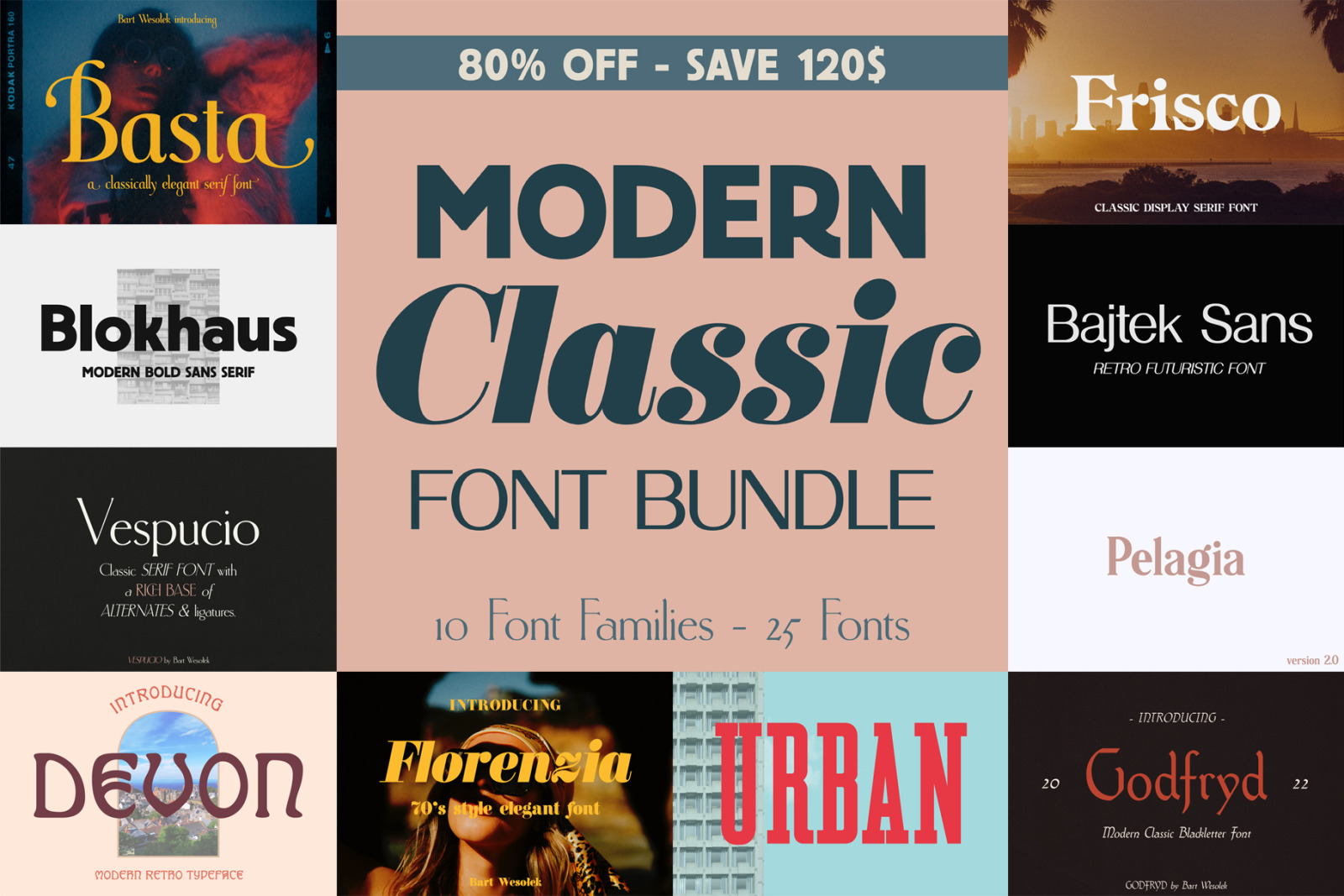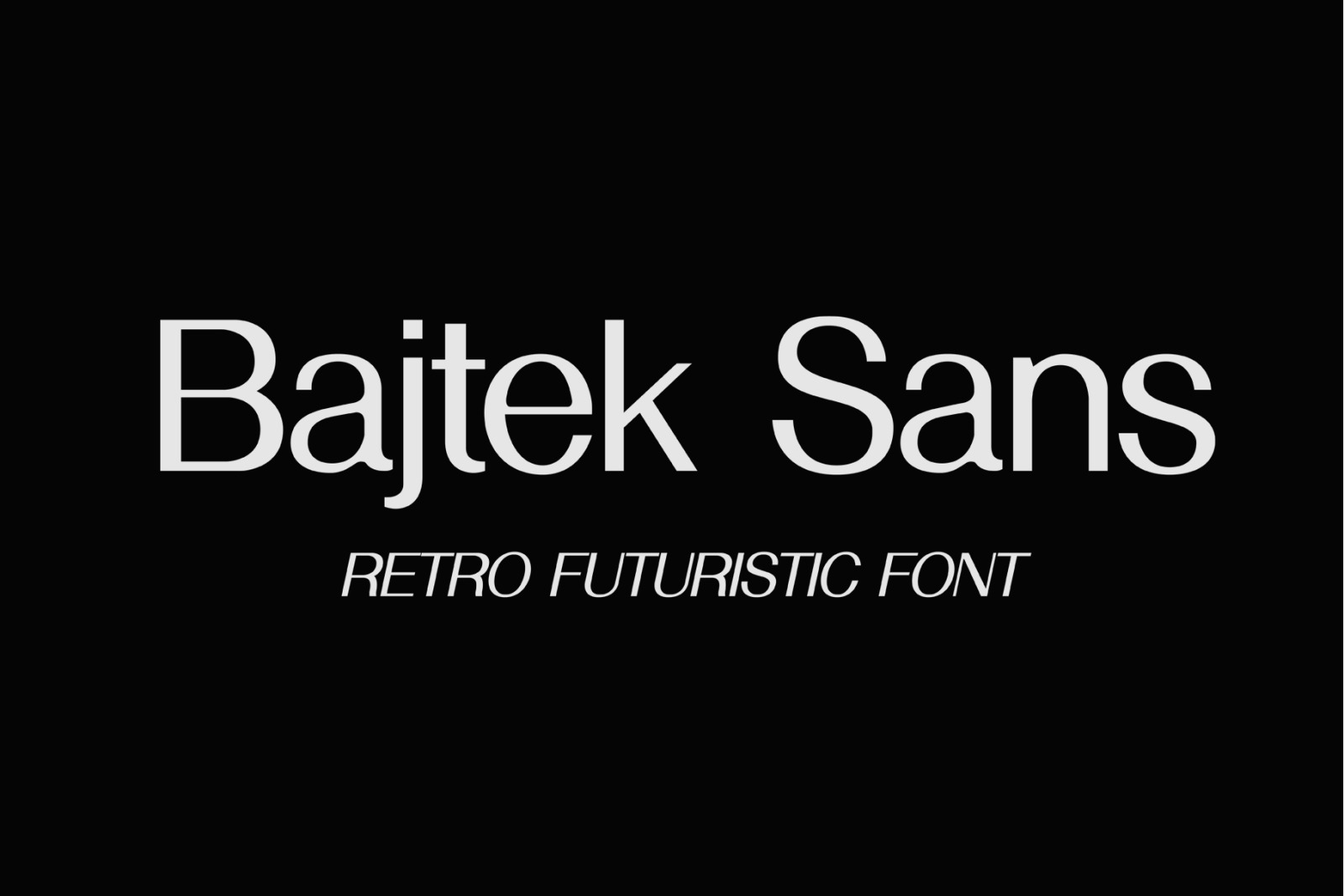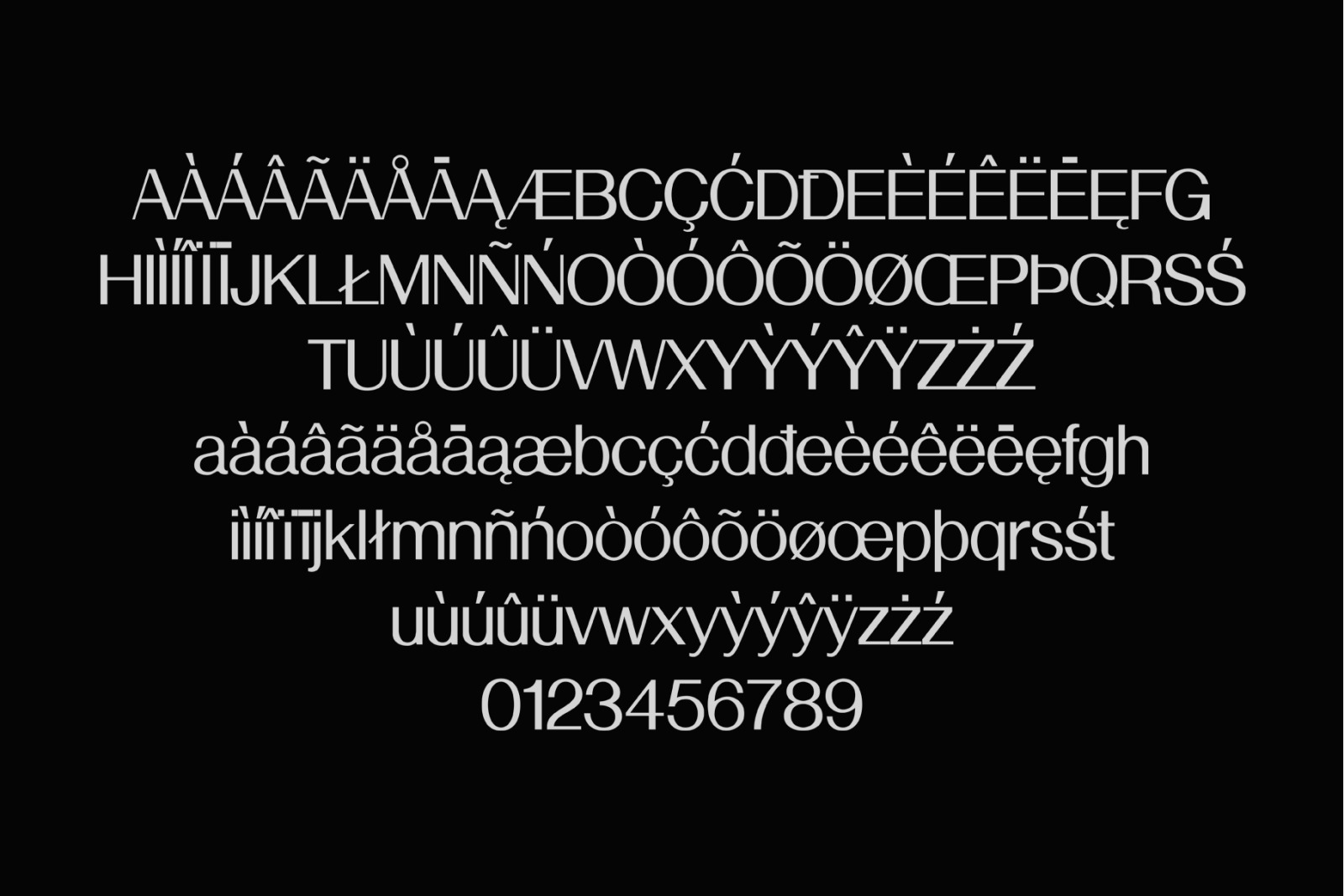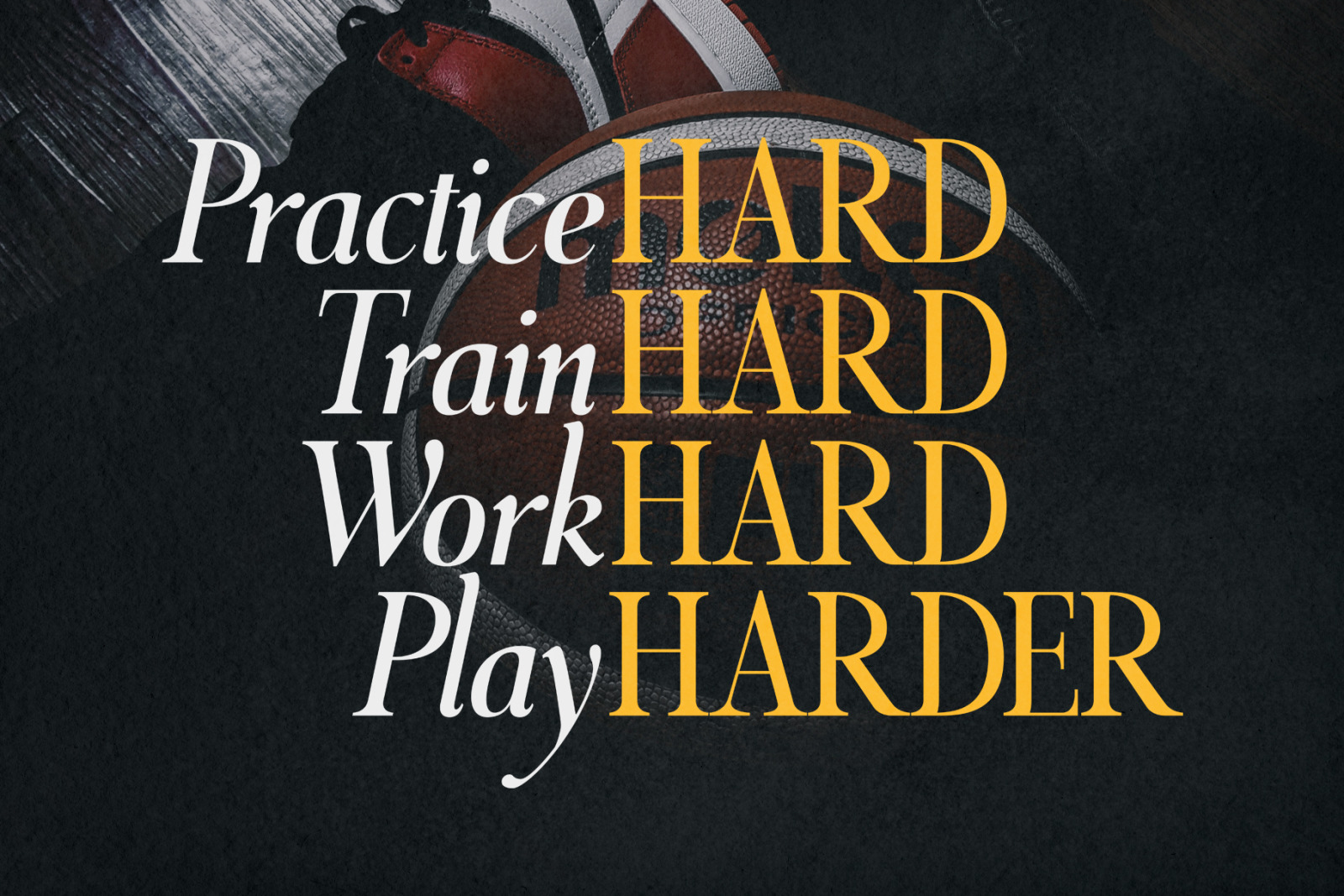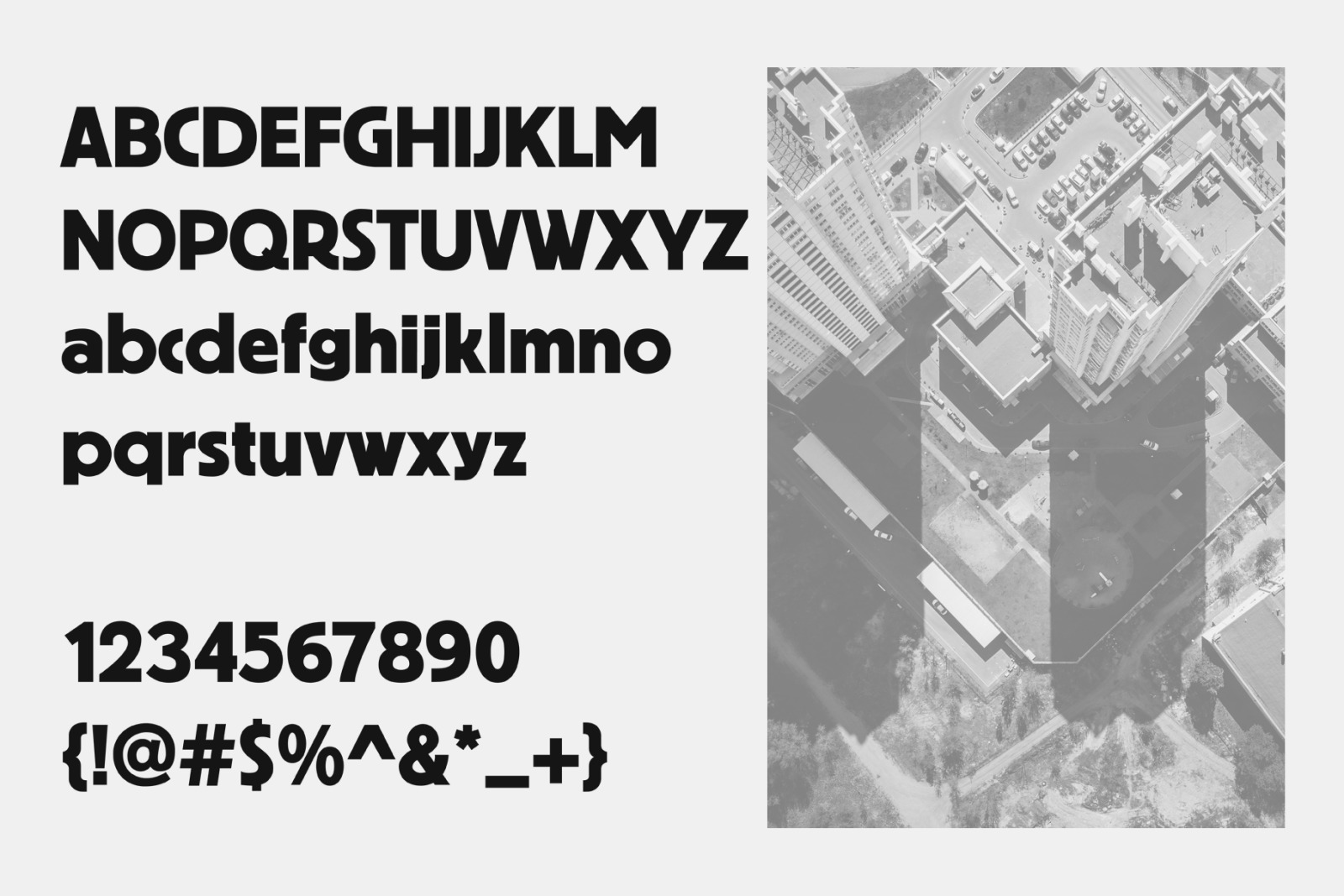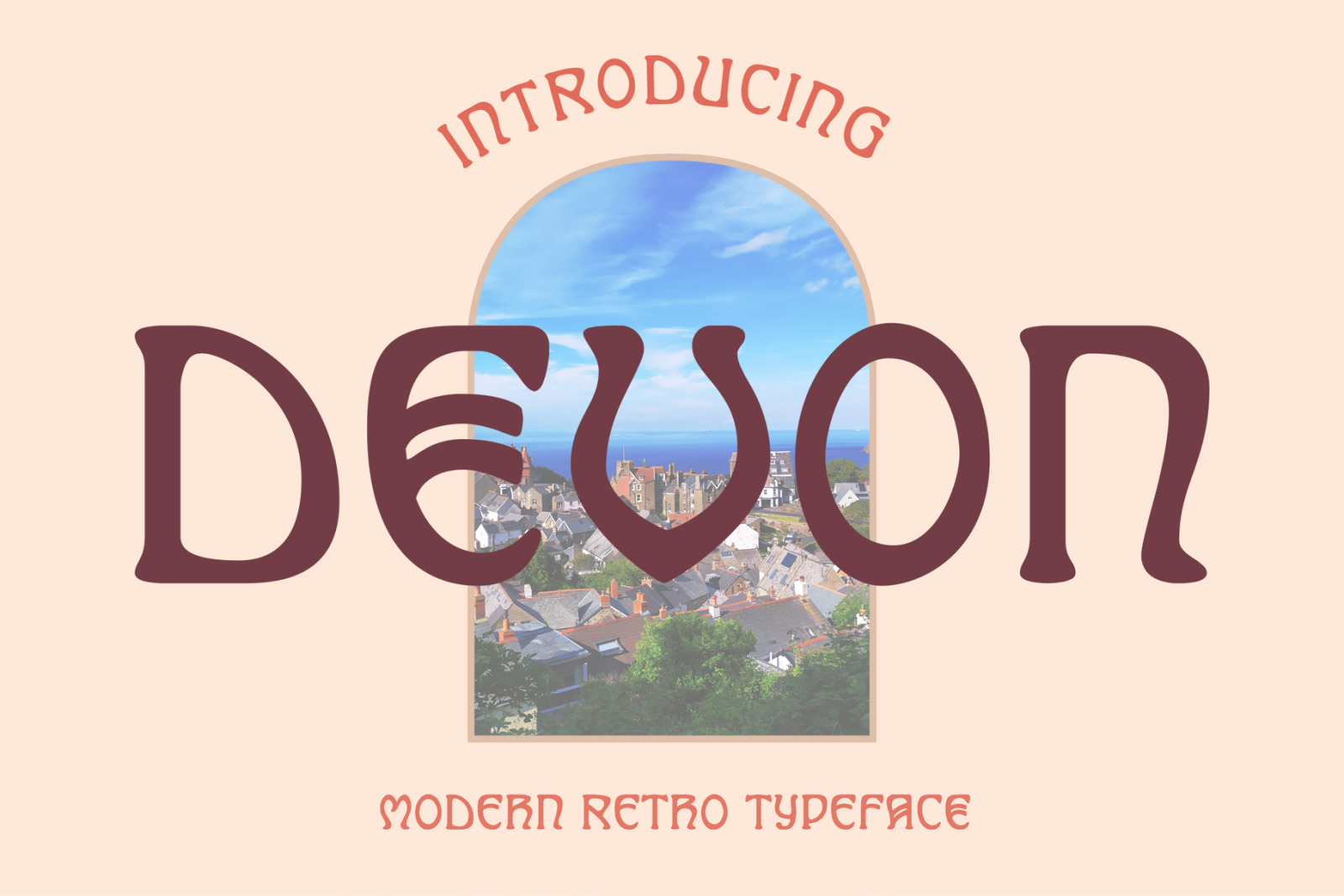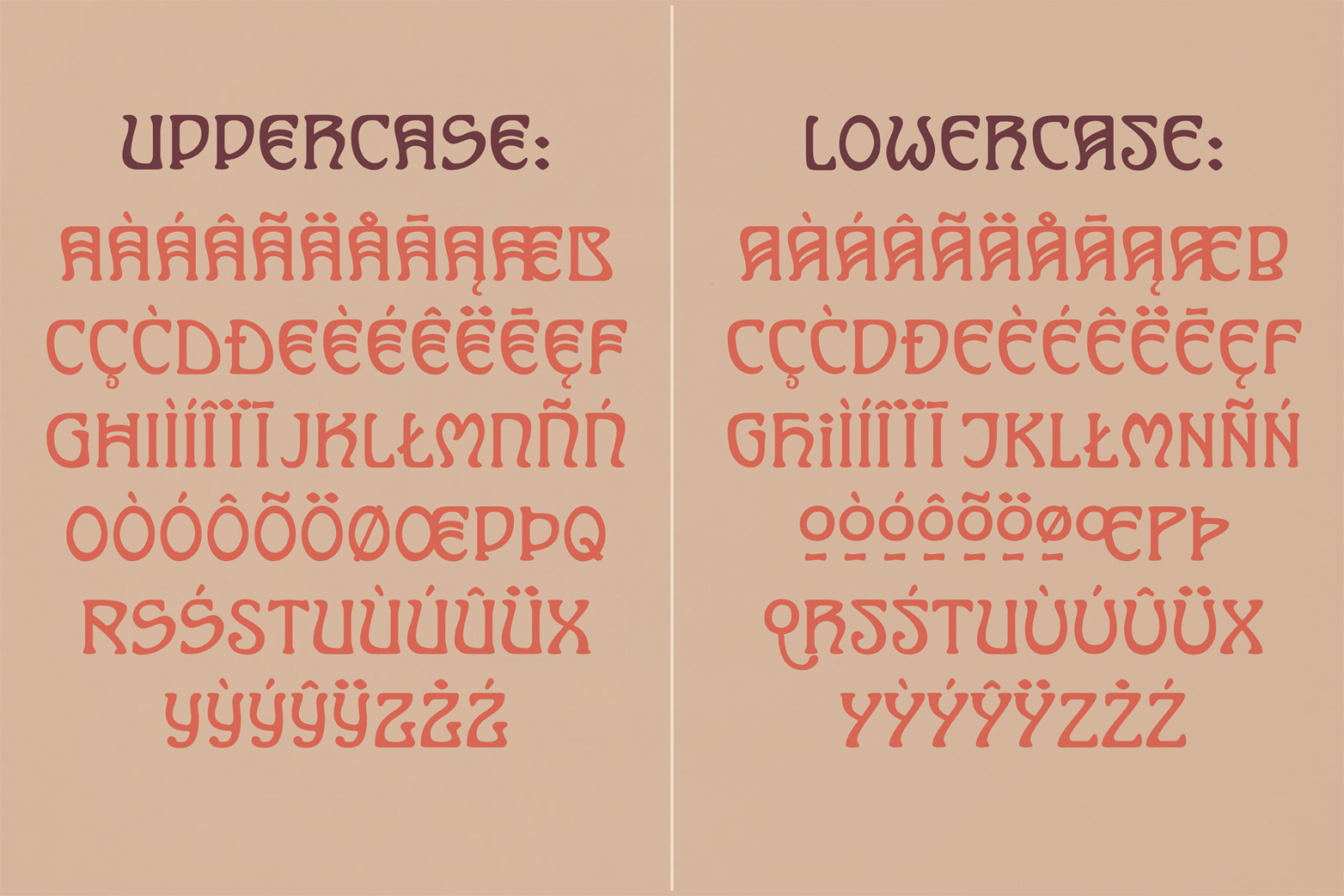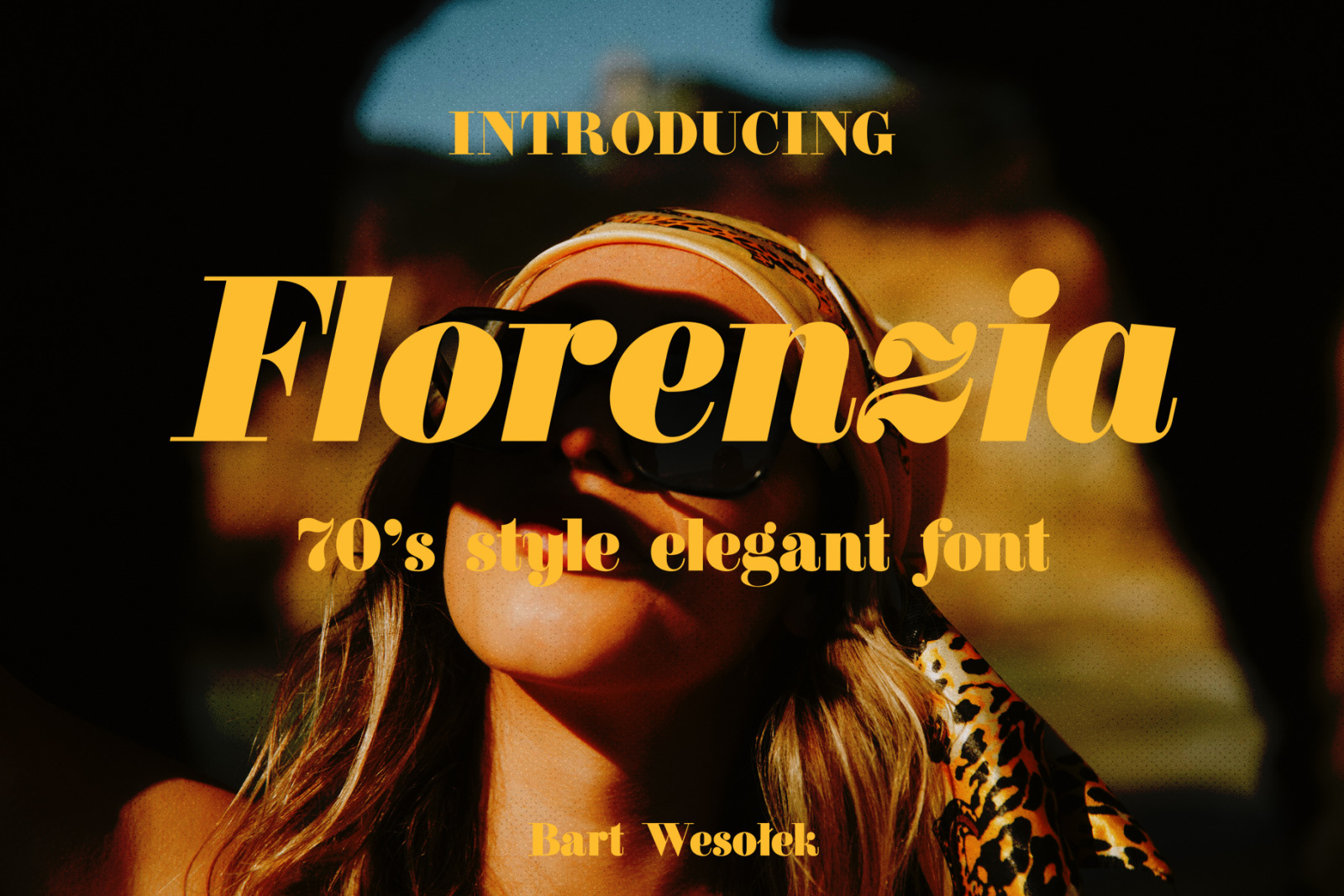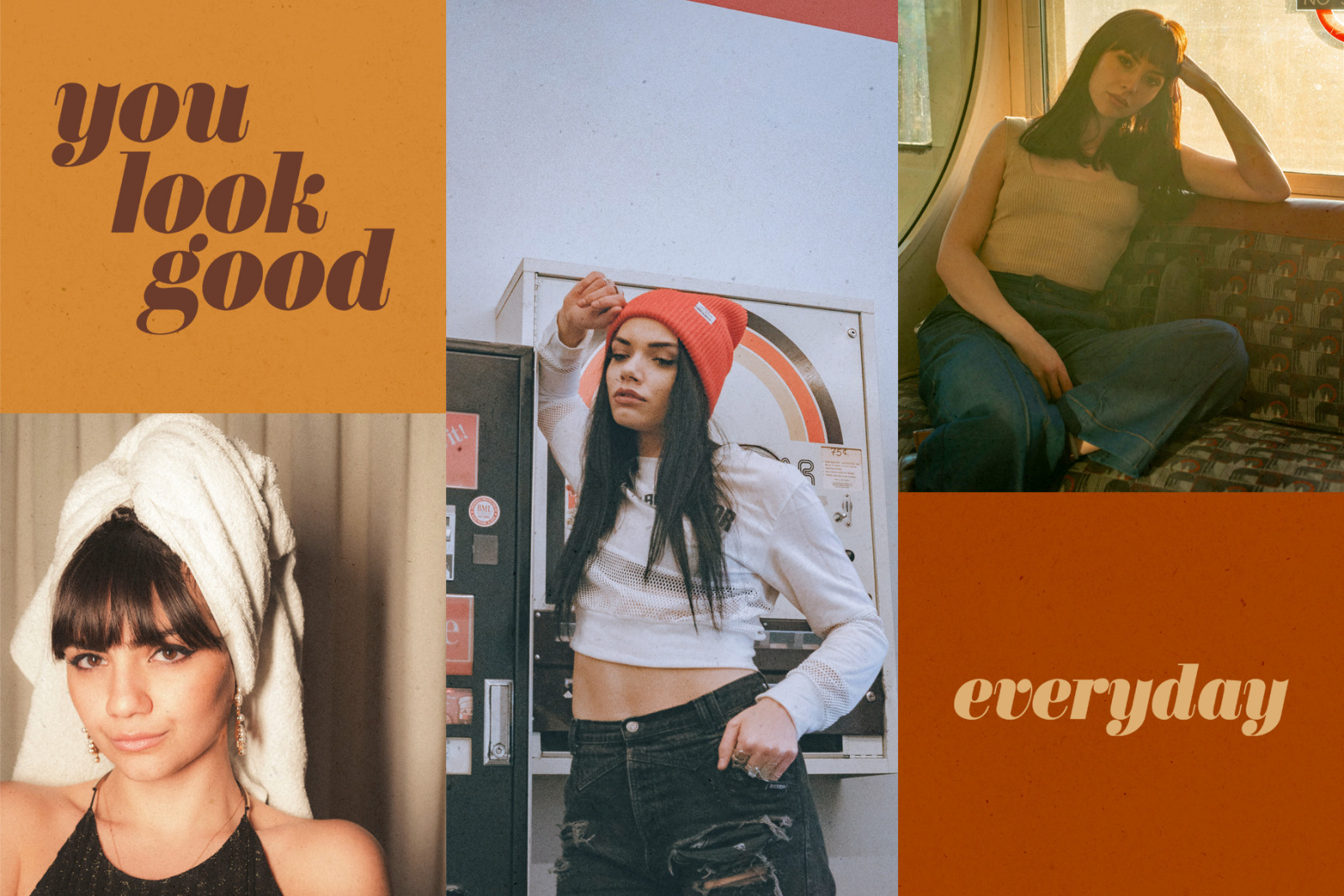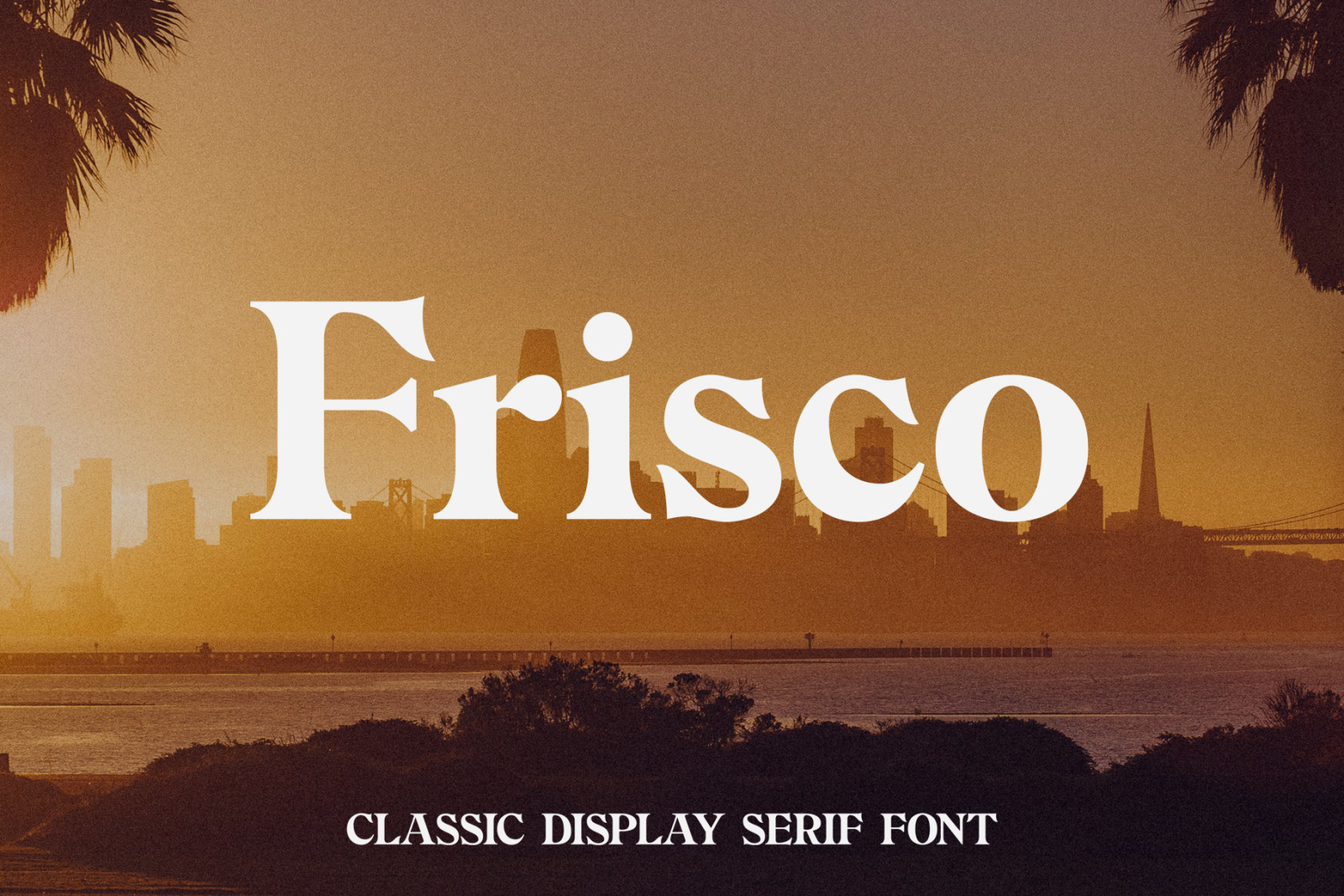
Modern Classic Font Bundle
Modern Classic Font Bundle containing over a dozen fonts created by me in the last few months. All fonts follow the latest trends and are perfect for designing logos, texts, posters, websites, brandings and more. Enjoy!
Fonts inside:
Blokhaus | Basta | Bajtek | Pelagia | Florenzia | Frisco | Urban | Vespucio | Godfryd | Devon